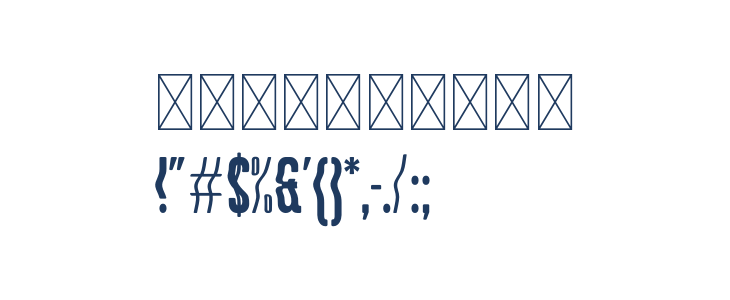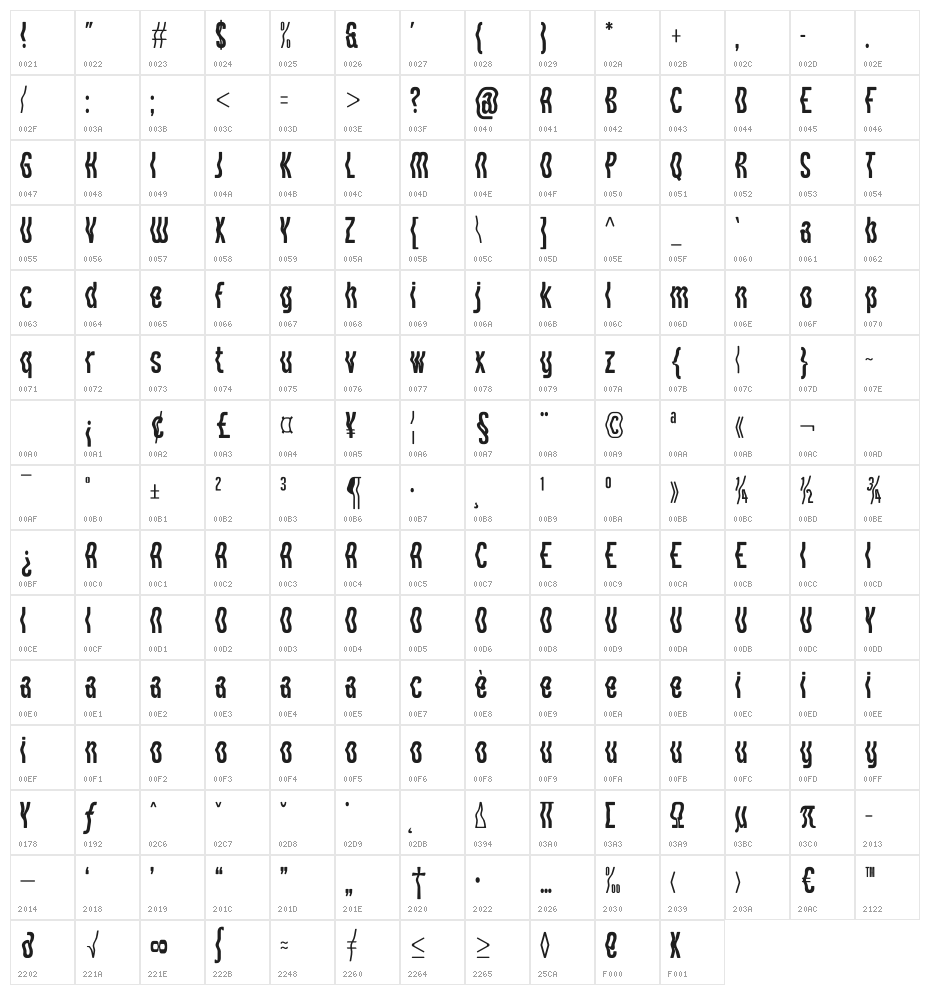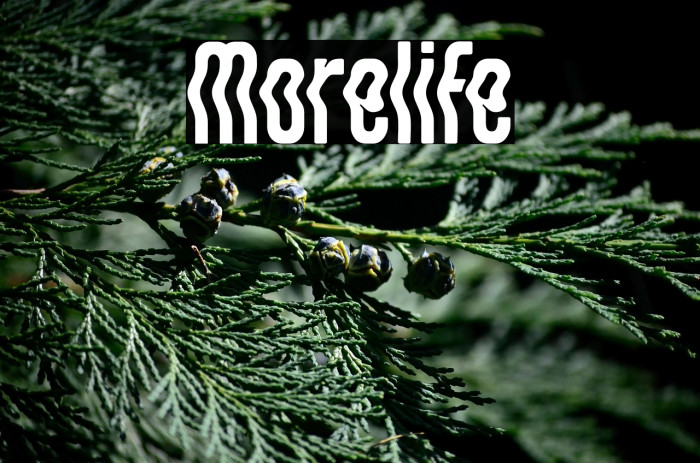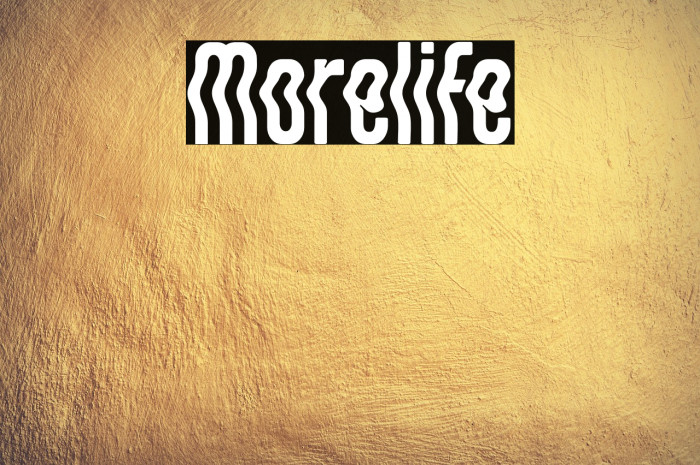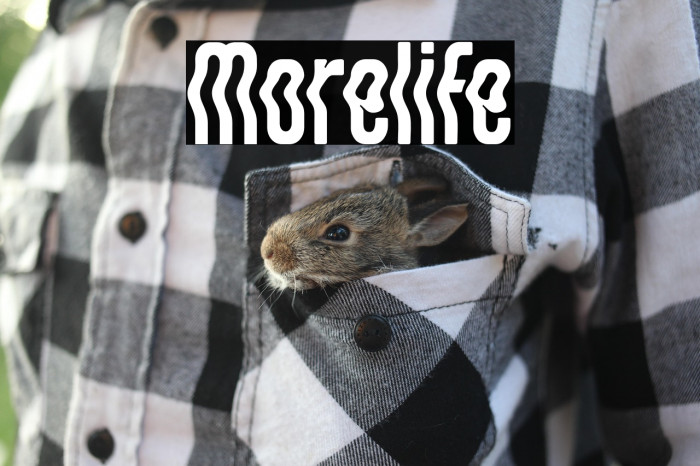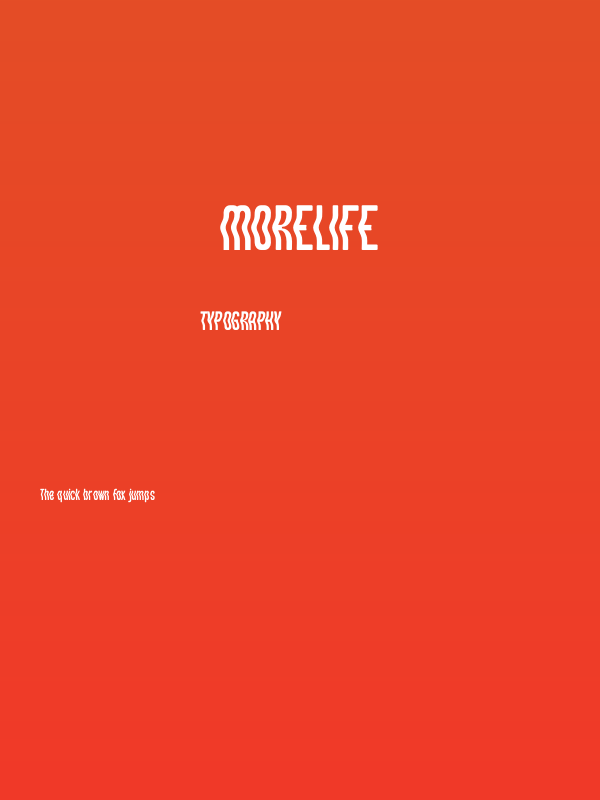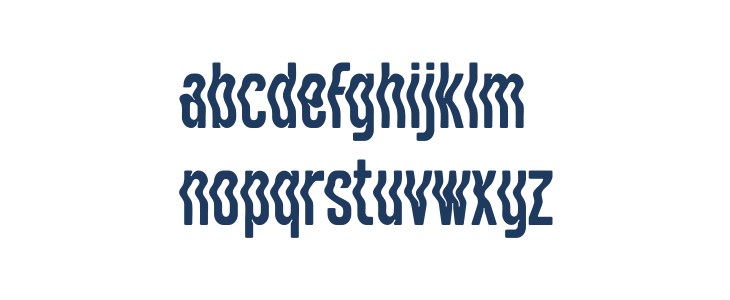
Morelife Font
Morelife Description
This font features a unique and bold design with wavy, undulating lines that give each character a dynamic and energetic appearance. The uppercase and lowercase letters maintain a consistent style, with a playful yet structured form. The numbers and special characters follow the same aesthetic, ensuring a cohesive look across all text elements. The font's distinctive curves and bold strokes make it stand out, ideal for projects that require a strong visual impact.
| Proposed Projects | Ideal for branding, poster design, album covers, and any creative project that requires a bold and eye-catching typeface. |